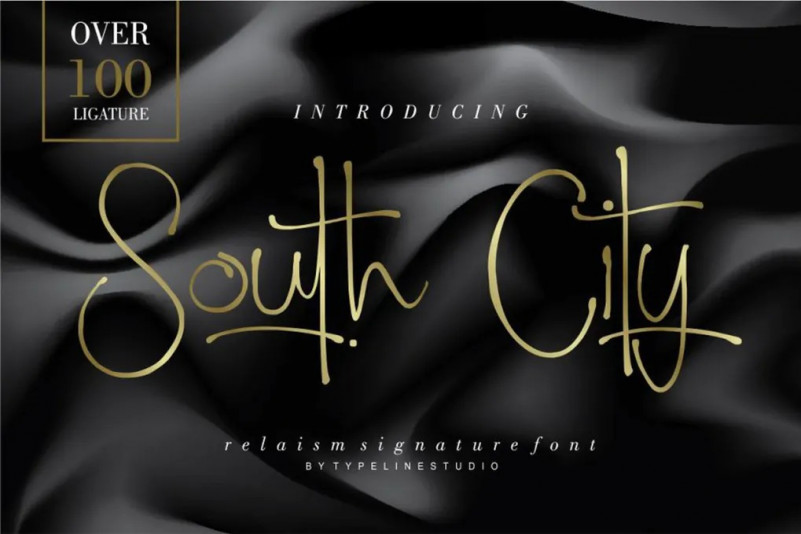
South City Font
When creating a font, we must consider that each letter must be connected to another letter. For example, the letter “a” must be well connected with “l” and “t” and with other letters. This limits us: we have to start letters from exactly one point and finish at the right second point. So here comes the ligature. The North City font contains the following ligatures: ab cb eb mb nb ub ob sb af cf ef mf nf of tt ett att ott uf at ct et mt nt ut ut ath oth eth th and many more.